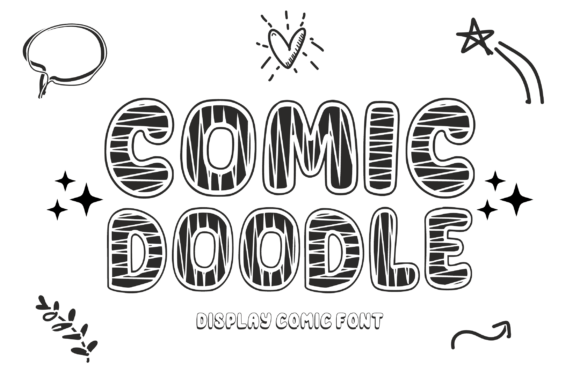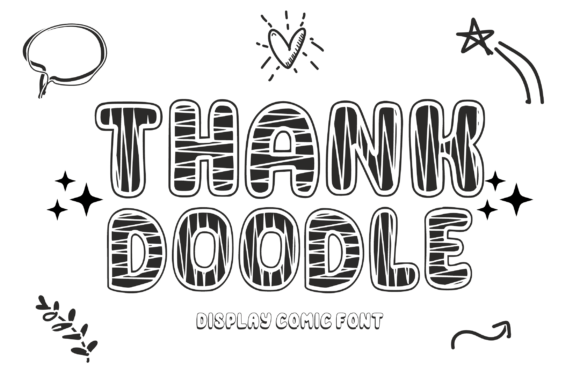
Introducing Cute Doodle: The Ultimate Font for Whimsical Designs
Are you tired of using the same old fonts in your designs? Look no further! We’re thrilled to introduce “Cute Doodle,” a revolutionary font that’s taking the design world by storm. Inspired by the playful and imaginative sketches of children, Cute Doodle is a game-changer for designers, crafters, and animators looking to add a touch of whimsy to their projects.
The Charm of Cute Doodle
Each letter of the Cute Doodle font is meticulously crafted to capture the essence of a child’s inventive drawings. The result is a font that’s bursting with energy, playfulness, and creativity. Whether you’re designing a t-shirt, mug, tote bag, or animated video, Cute Doodle is the perfect choice to add a dash of personality and flair.
Cute Doodle is a versatile font that can be used in a wide range of design projects. Here are just a few ideas to get you started:
- T-shirts and apparel: Add a fun and quirky touch to your designs with Cute Doodle. Perfect for kids’ clothing, party favors, or promotional items.
- Mugs and ceramics: Give your mugs, cups, and ceramics a playful makeover with Cute Doodle. Great for gifts, parties, or everyday use.
- Tote bags and accessories: Create eye-catching tote bags, pouches, and accessories with Cute Doodle. Ideal for markets, events, or as a fun way to carry your essentials.
- Animated creations: Bring Cute Doodle to life in your animated videos, shorts, or explainer videos. Add a dash of comic-strip excitement to your titles and characters.
Why Cute Doodle is a Must-Have for Designers and Crafters
Cute Doodle is more than just a font – it’s a design experience. Here are just a few reasons why designers and crafters are falling in love with Cute Doodle:
- Unique and playful style: Cute Doodle offers a fresh and distinctive aesthetic that’s sure to set your designs apart.
- Easily readable: Despite its playful nature, Cute Doodle is surprisingly easy to read, making it perfect for titles, headings, and short text.
- Scalable: Cute Doodle looks great at any size, from small icons to large billboards.
- Versatile: Use Cute Doodle in a variety of design contexts, from digital to print, and across different mediums.
Getting Creative with Cute Doodle
Now that you’ve met Cute Doodle, it’s time to get creative! Here are some tips to help you make the most of this amazing font:
- Experiment with colors: Cute Doodle looks great in a range of colors, from bright and bold to pastel and soft.
- Mix and match: Combine Cute Doodle with other fonts or graphics to create unique and eye-catching designs.
- Add textures and patterns: Give your designs an extra layer of depth with textures and patterns that complement Cute Doodle.